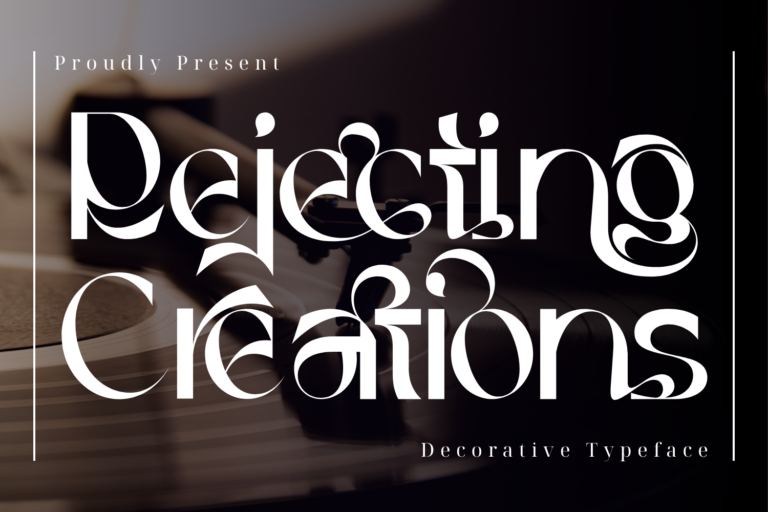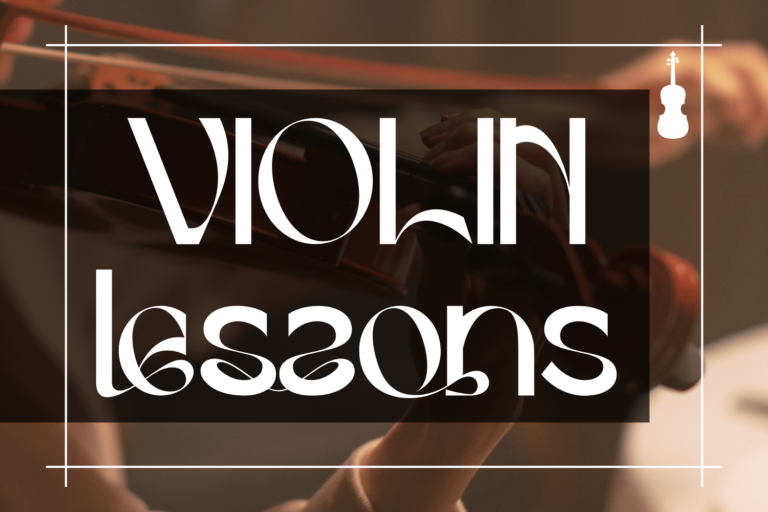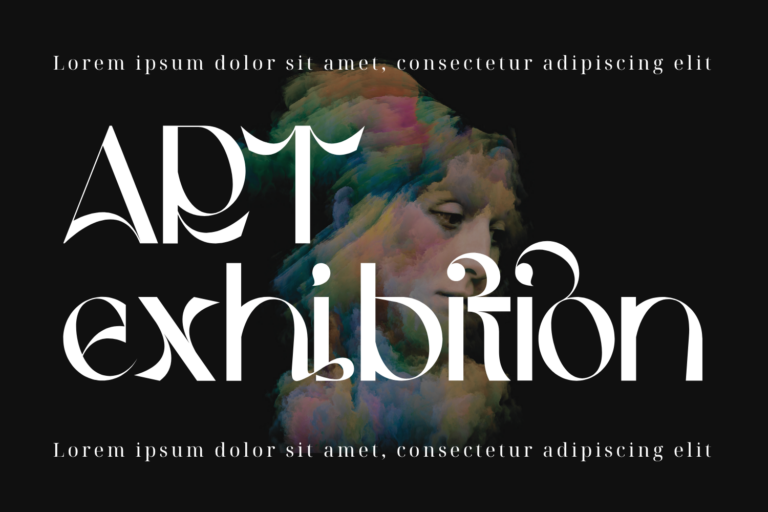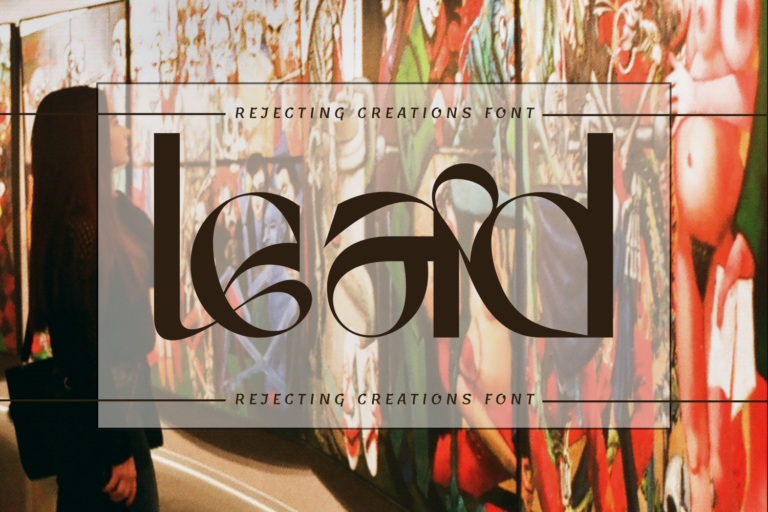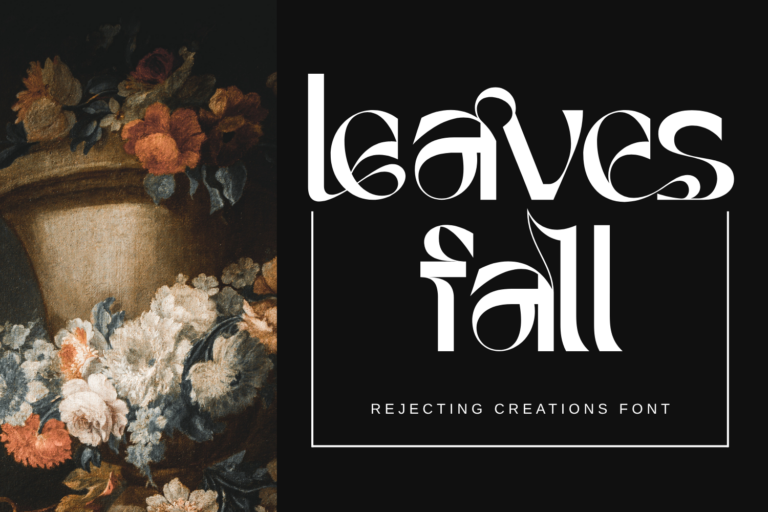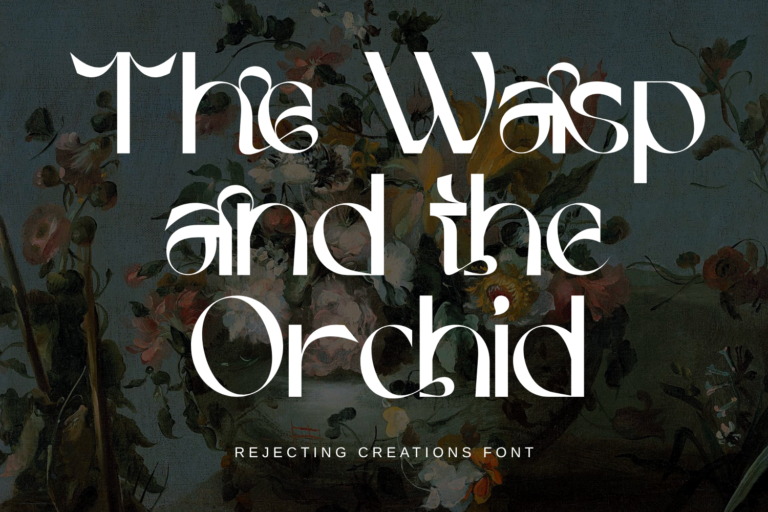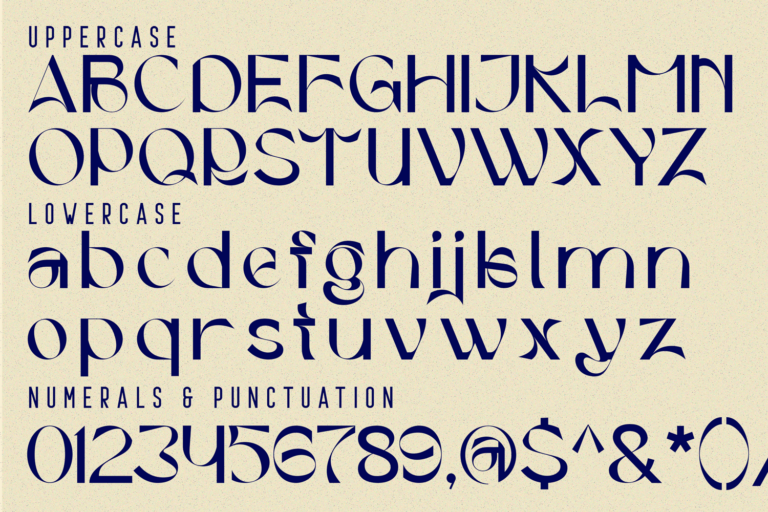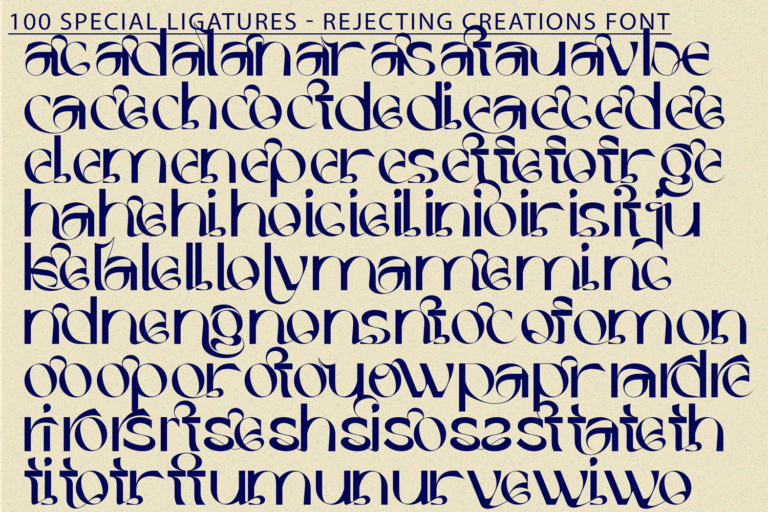
Rejecting Creations – Ligature Font is a highly stylized experimental serif typeface crafted for bold visual storytelling. With sharp contrasts, unusual ligature compositions, and abstract ornamental terminals, this font was designed to push the boundaries of traditional typography. Its avant-garde forms blend elegance with surprise, offering a sense of rhythm and movement through unexpected curves and architectural cuts. Perfect for editorial headlines, branding identities, album covers, posters, and artistic layouts that require a statement piece.
Font Features:
• Uppercase & Lowercase Alphabets
• Over 100 Creative Ligatures and Alternates
• Numerals & Full Punctuation Set
• Extensive Language Support (Accented Characters)
• Ideal for high-impact editorial, fashion campaigns, music artwork, or modern art brands
ac ad al an ar as at au av be ca ce ch co ct de di ea ec ed ee el em en ep er es et fe fo fr ge ha he hi ho ie ic il in io ir is it ju ke la le li ll lo ly ma me mi nc nd ne ng no nt ns oc of om on oo op or ot ou ow pa pr ra rd re ri ro rs rt se sh si so ss st ta te th ti to tr tt um un ur ve wi wo
Rejecting Creations – Ligature Font